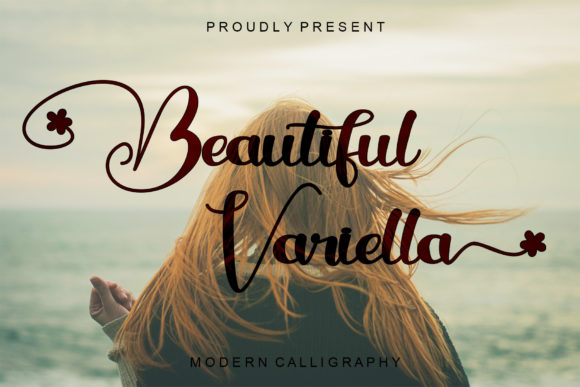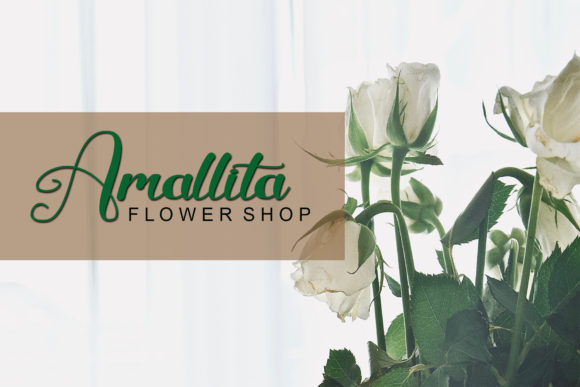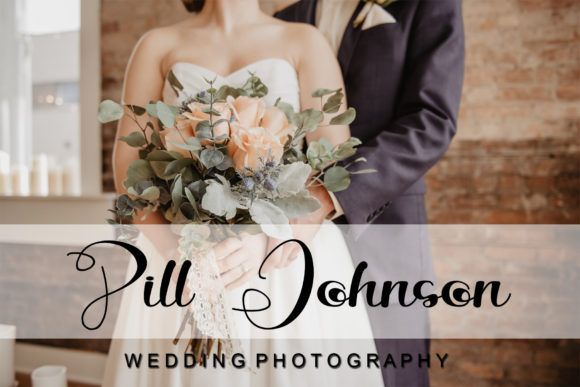
About Beautiful Variella Font
Beautiful Variella is a distinct and whimsical handwritten font. Romantic and stylish, this font will make each of your creations look amazing. Beautiful Variella is PUA encoded which means you can access all of the glyphs and swashes with ease!